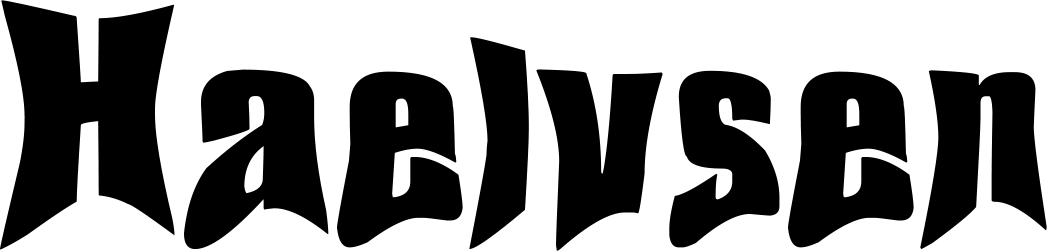
Haelvsen Font
You can create new concepts for different projects like cartoons, posters, apps, flyers, branding, book and album covers with a creative font like Haelvsen. This is a distorted font containing bold and deformed letters that can bring such interesting moods to your content.
This font comes with an awesome collection of characters containing both the uppercase and lowercase of the alphabet, the numbers, and the punctuation marks.